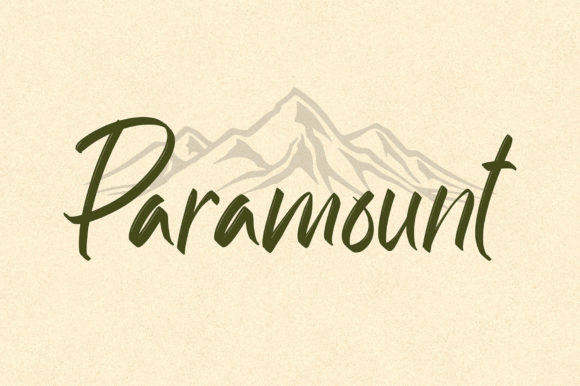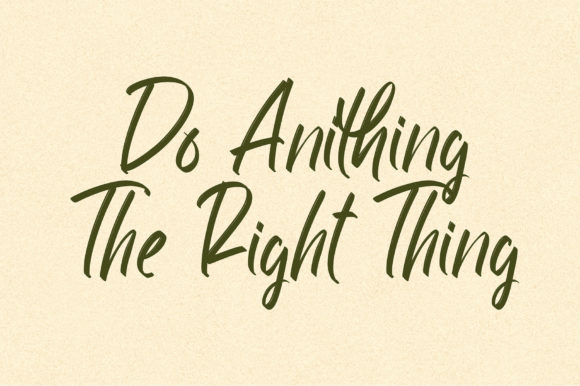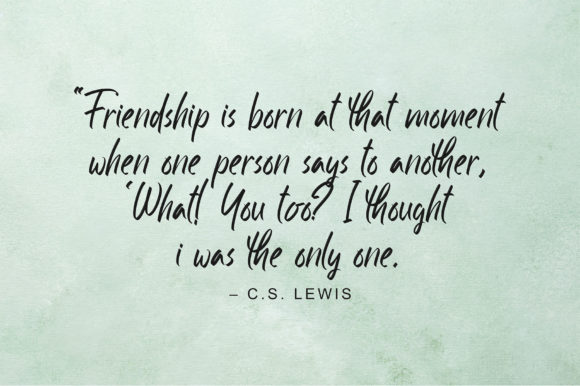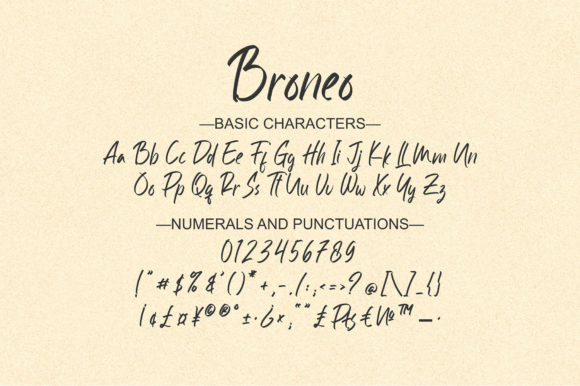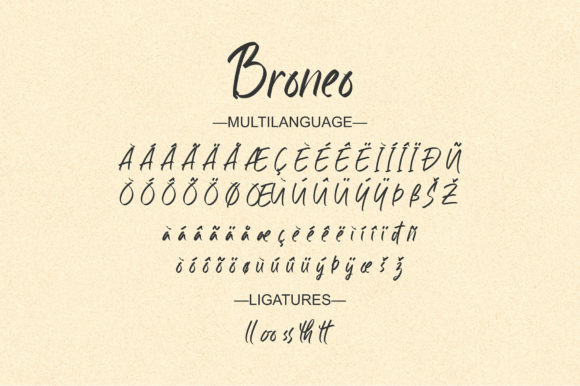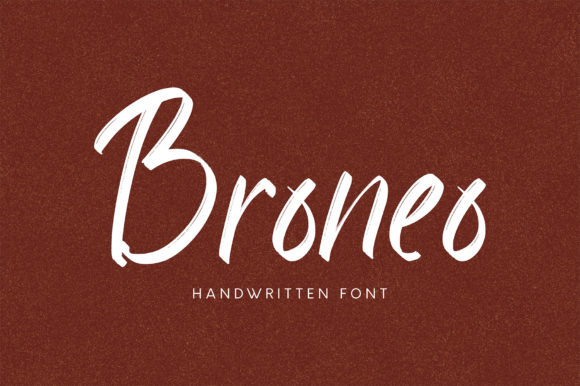
Discover the Unique Charm of Broneo Font: Elevate Your Designs with a Brush Pen Beauty
Are you on the hunt for a font that adds a personal touch to your designs? Look no further than Broneo Font, a stunning handwritten typeface crafted with the elegance of a brush pen. Broneo is not just a font; it’s an artistic statement that brings versatility and personality to your creative projects. In this article, we’ll dive into the world of Broneo, exploring its characteristics, uses, and why it should be your next go-to font for making designs that stand out.
The Birth of Broneo: A Brush Pen’s Legacy
Broneo Font is the result of a meticulous creation process, combining traditional techniques with modern digital tools. Its unique look is attributed to the brush pen, an instrument known for its expressive lines and variable strokes. This handwritten font embodies the natural flow and spontaneity of brush pen writing, giving it a distinct character that digital fonts often lack.
Key Features of Broneo Font
• Versatile Style: Broneo boasts an incredibly versatile style that can adapt to various design needs. Whether you’re working on a wedding invitation, a brand logo, or a blog post, Broneo can bring a touch of elegance and informality at the same time.
• Handwritten with Love: Every letter in Broneo is crafted with love and care, reflecting the personal touch of a handwritten font. This makes it perfect for projects where you want to convey warmth and authenticity.
• Easy to Read: Despite its artistic nature, Broneo maintains a high level of readability. This balance between style and legibility makes it an excellent choice for both headings and body text.
• Multipurpose: From digital media to print, Broneo can be used across a wide range of platforms. Its flexibility allows designers to maintain consistency in their branding across different mediums.
Why Designers and Crafters Love Broneo
Broneo has quickly become a favorite among designers and crafters for several reasons. Its unique aesthetic offers a refreshing alternative to more traditional fonts, allowing for creative freedom and the ability to produce distinctive designs. Here are a few scenarios where Broneo shines:
• Branding: Use Broneo to give your brand a personal and approachable feel. Its distinctive style can help your brand stand out in a crowded market.
• Wedding and Event Planning: Broneo’s elegant yet informal style makes it perfect for wedding invitations, save-the-date cards, and other event-related materials.
• Blogging and Digital Content: Add a personal touch to your blog posts, social media graphics, and website headers with Broneo. It can make your digital content more engaging and relatable.
• Crafting and DIY Projects: Whether you’re creating handmade products or crafting digital downloads, Broneo can add that extra special something to your designs.
How to Make the Most of Broneo Font
To fully leverage the potential of Broneo, consider the following tips:
• Pair it Wisely: Combine Broneo with complementary fonts to create visual interest. A sans-serif font can balance out Broneo’s ornate style, making your design more dynamic.
• Play with Colors: Broneo looks great in a variety of colors. Experiment with different hues to find the perfect match for your design’s mood and theme.
• Adjust and Customize: Don’t be afraid to tweak Broneo’s size, spacing, and alignment to fit your project’s requirements. Customization can help you achieve the perfect look.
Font Name Broneo Font
Author Aljawi Studio
Broneo Font is more than just a typeface; it’s a tool for creative expression. Its unique blend of elegance and informality makes it an invaluable asset for designers and crafters looking to add a personal touch to their work. With its versatility, readability, and undeniable charm, Broneo is poised to become a staple in your font collection. So, fall in love with Broneo’s spectacular style and let it guide your next design project to new heights of creativity and beauty.